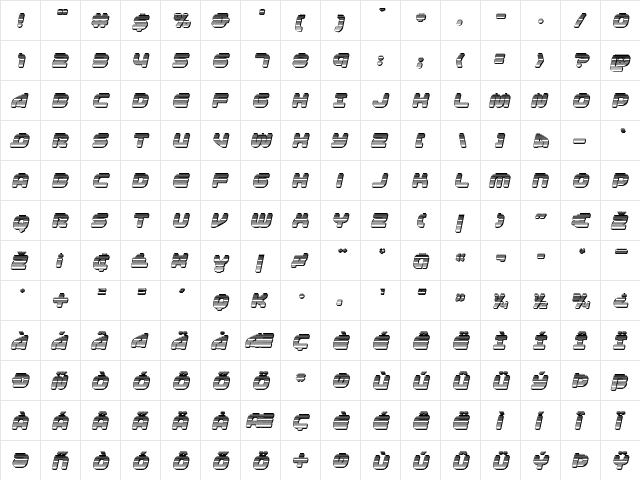
1st Enterprises Chrome Italic Italic
Design Context for 1st Enterprises Chrome Italic Typeface
1st Enterprises Chrome Italic is a composed and adaptable typeface that performs quietly and consistently across a wide range of design contexts. Its italic angle brings a sense of urgency and motion to the letterforms.
Pro Tip: Try 1st Enterprises Chrome Italic for annotation and caption copy alongside an upright companion — the contrast in angle creates a dynamic but ordered typographic system.